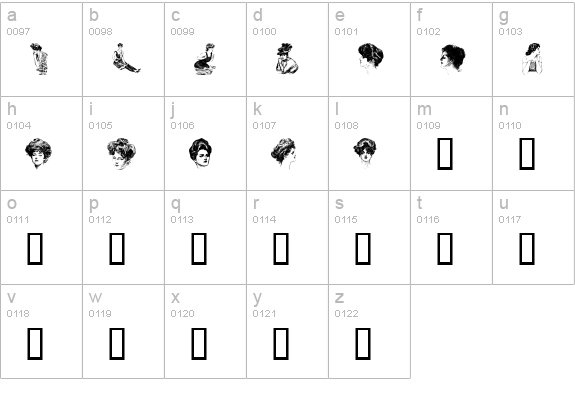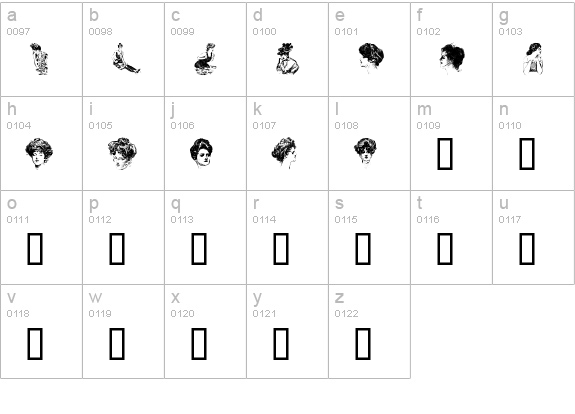
Liz's GibsonGirls Font Details
Liz's GibsonGirls font is a stunning display typeface that exudes elegance and sophistication. Inspired by the iconic Gibson Girl illustrations from the early 20th century, this font captures the essence of vintage charm and beauty. With its delicate lines and intricate details, Liz's GibsonGirls font is perfect for adding a touch of class to your designs. And the best part? Liz's GibsonGirls font is completely free to download at FontsMarket.com. Whether you're working on a branding project, invitations, or any other creative endeavor, this font will surely make a statement and elevate your designs to new heights. Download Liz's GibsonGirls font today and let its timeless appeal bring a touch of nostalgia and grace to your work.